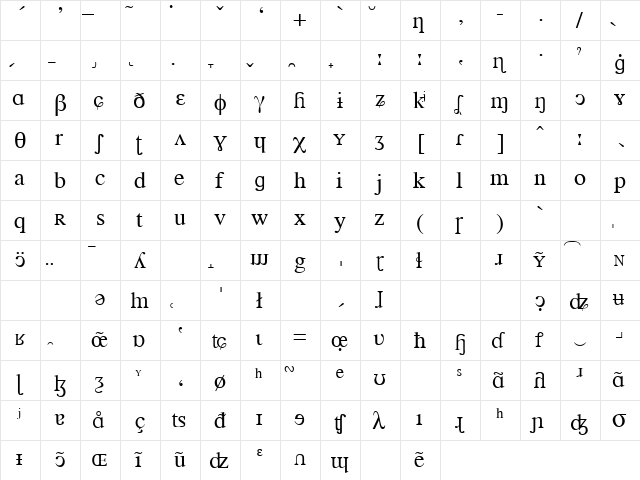
APITimesCD Regular
Design Context for APITimesCD Typeface
APITimesCD is a composed and adaptable typeface that performs quietly and consistently across a wide range of design contexts.